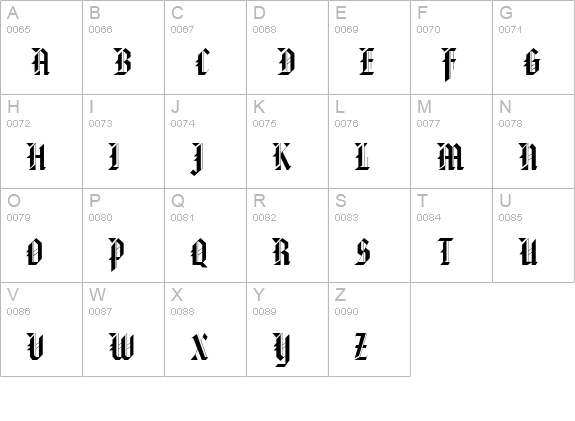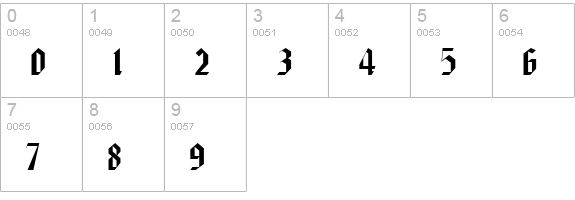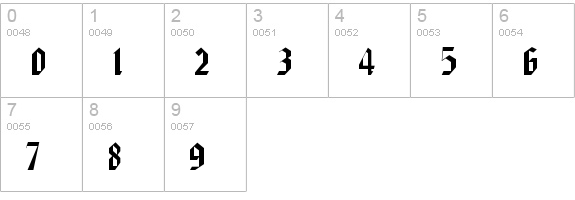
Alaric SSi Font Details
Alaric SSi font is a striking and versatile typeface that exudes elegance and sophistication. With its unique blend of contemporary and classic elements, this font is perfect for a wide range of design projects, from branding to editorial work. The sleek lines and graceful curves of Alaric SSi give any text a polished and professional look. What makes Alaric SSi font even more appealing is that it is completely free to download! That's right, you can add this beautiful font to your collection without spending a dime. Simply head over to FontsMarket.com to access the free download and start using Alaric SSi in your designs today. Don't miss out on this opportunity to elevate your projects with the timeless charm of Alaric SSi font.